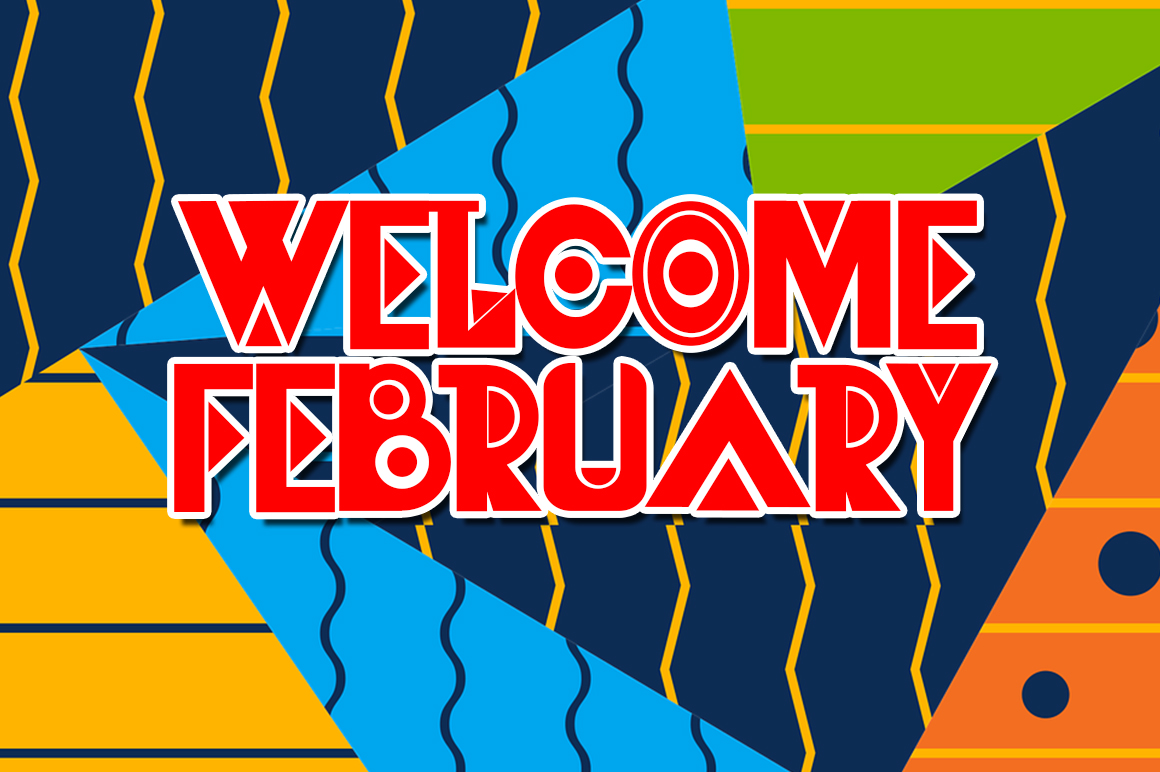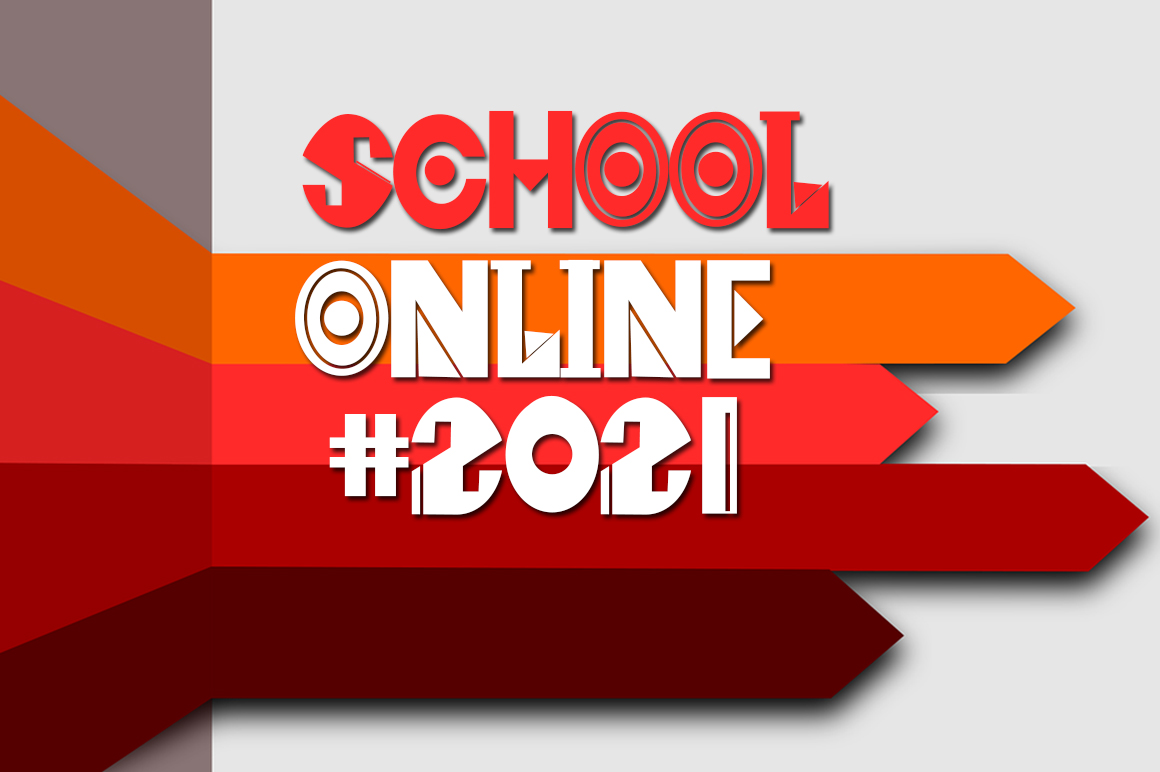
Jungle Jump Font
Jungle Jump Display Font
It’s a cute and colorful display font. It embodies playfulness and authenticity and is the perfect choice for any children activity or school project. Add this chunky lettered font to your designs and notice how it makes them come alive!